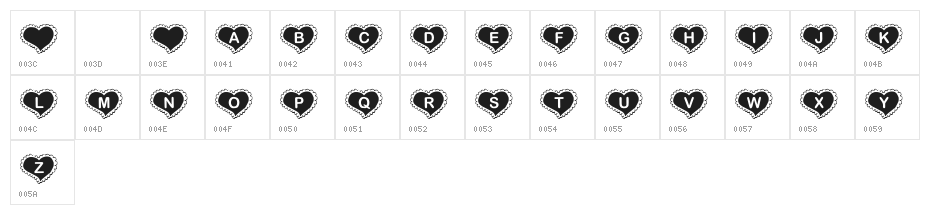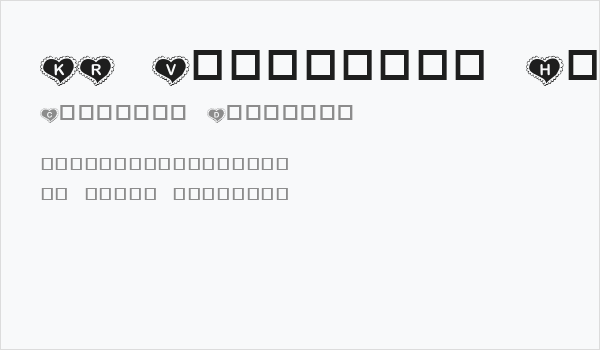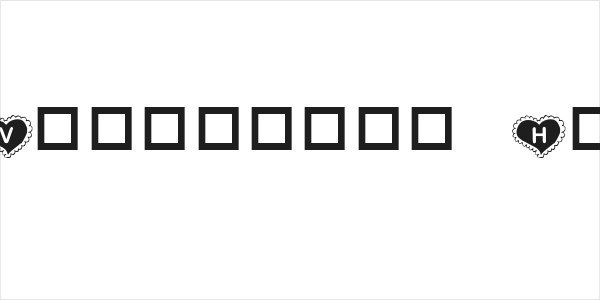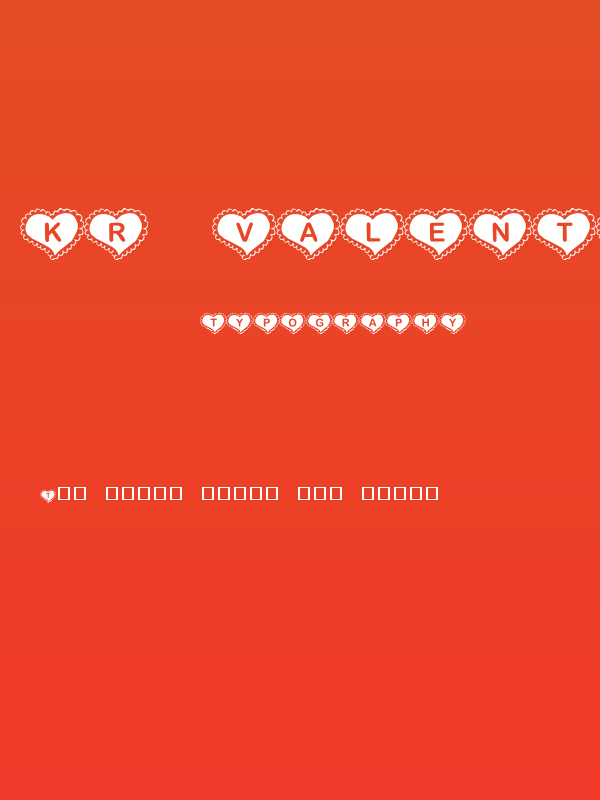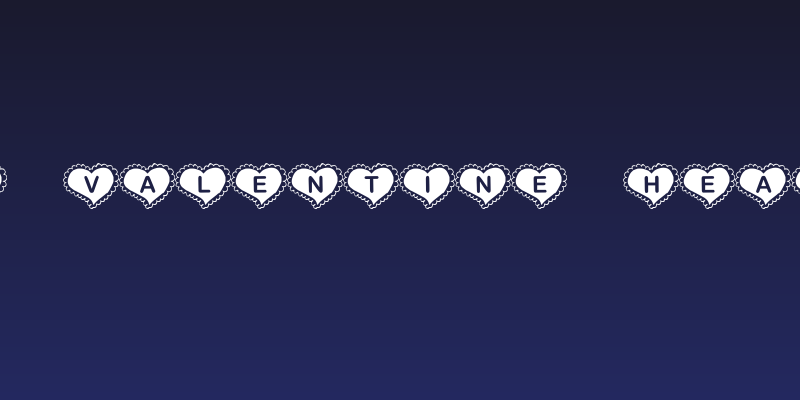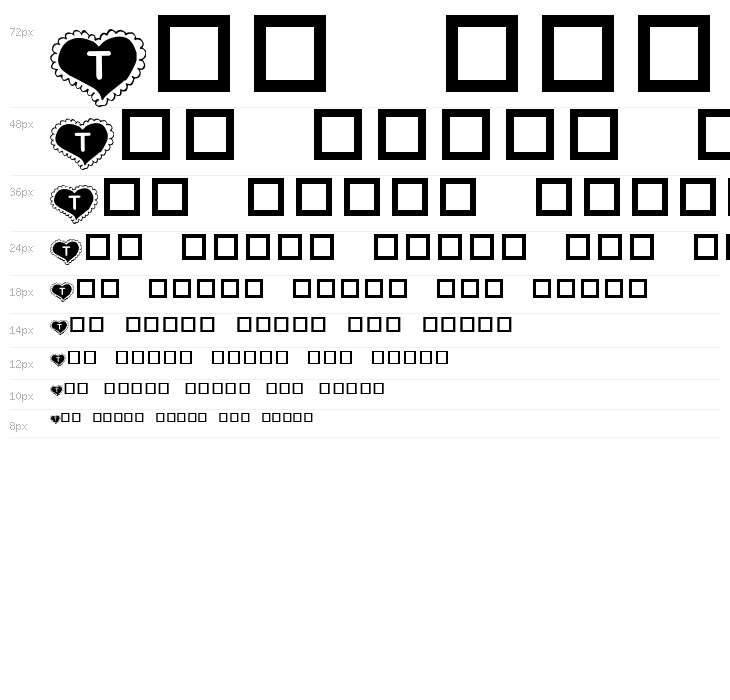
KR Valentine Heart Font
KR Valentine Heart Description
This decorative font features each letter encased within a heart shape, creating a playful and romantic aesthetic. The letters are bold and capitalized, standing out against the heart's dark background. The heart shapes are outlined with a delicate lace-like pattern, adding an extra layer of charm and intricacy. This font is ideal for projects that require a touch of whimsy and affection, such as Valentine's Day cards, wedding invitations, or romantic-themed designs. Its unique style makes it perfect for capturing attention and conveying a message of love and warmth.
| Proposed Projects | Valentine's Day cards, wedding invitations, romantic-themed designs, love letters. |